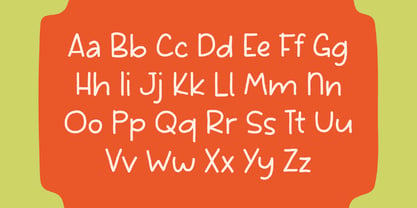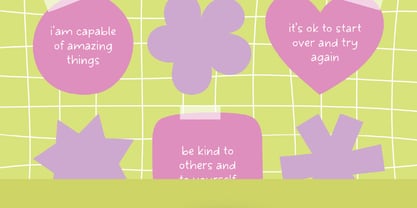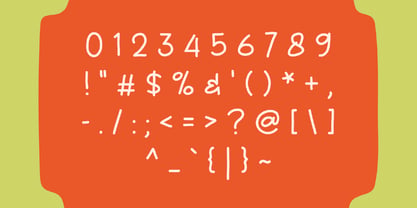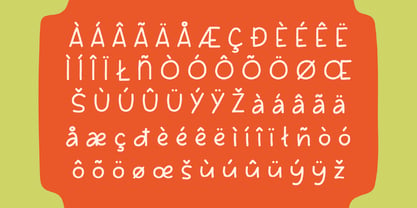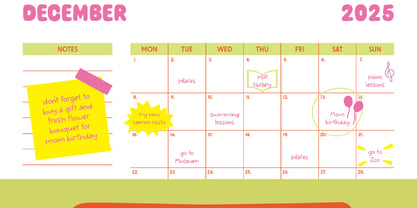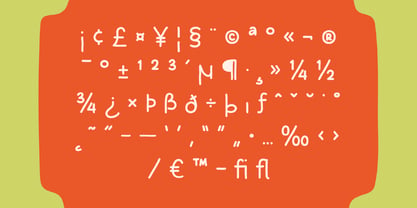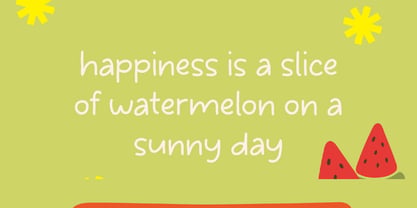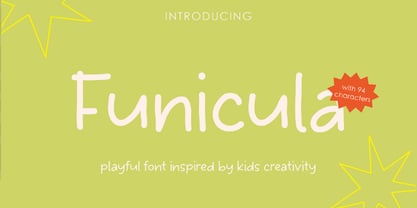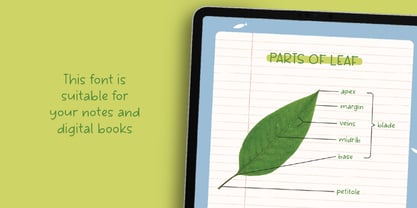
Funicula
von Pikgura Type
Die Schriftfamilie Funicula wurde von Acmarsita Caerola entworfen und von Pikgura Type veröffentlicht. Funicula enthält 1 Stile. Mehr über diese Familie
Funicula is a lively handwritten typeface that captures the spontaneous charm of childhood creativity. With its rounded strokes and playful rhythm, this font brings a sense of warmth and imagination to any project.
Designed to evoke the joy of doodling and storytelling, Funicula is ideal for children’s books, educational materials, party invitations, and branding that seeks a friendly, approachable tone. Each glyph is carefully crafted to maintain legibility while preserving a hand-drawn authenticity.
Designer: Acmarsita Caerola
Foundry: Pikgura Type